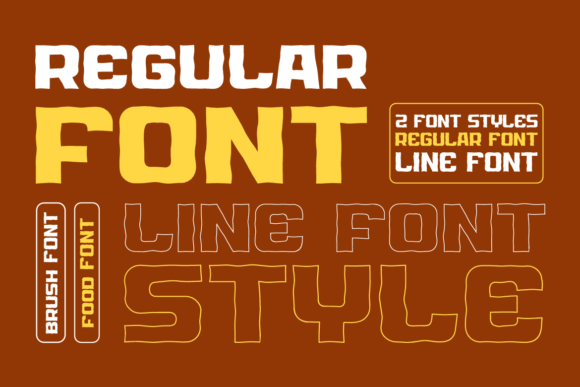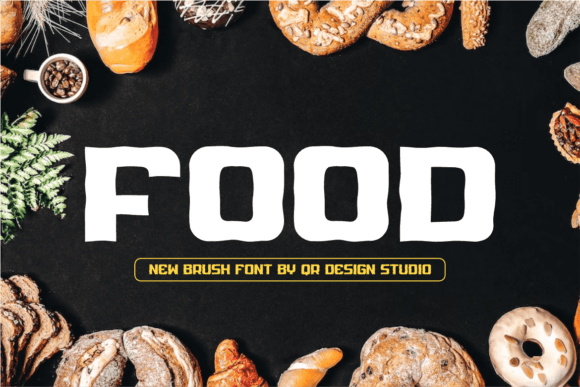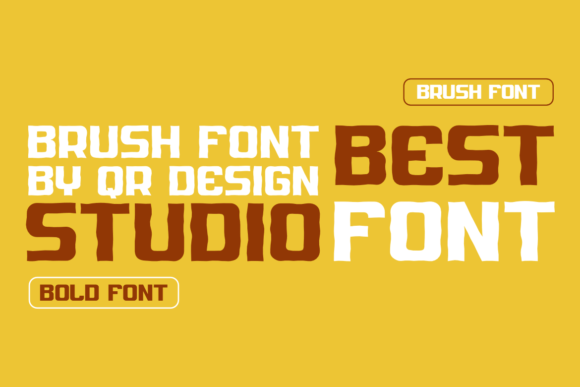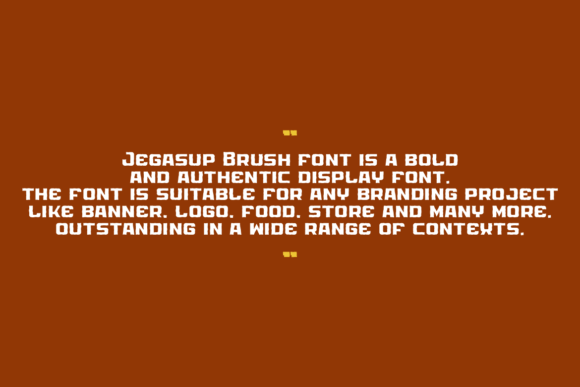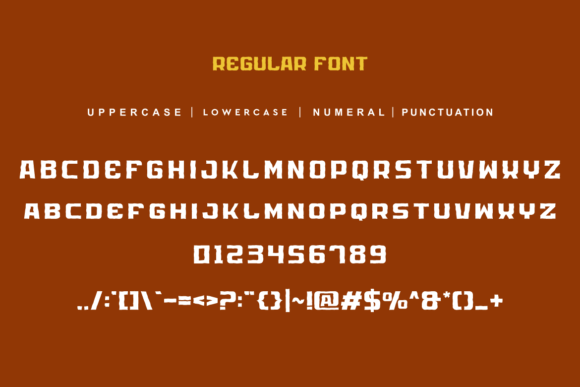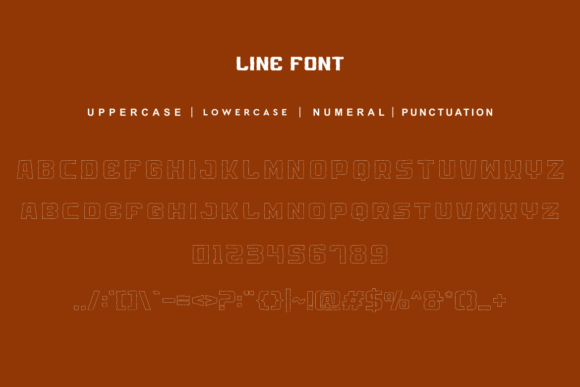
The Joy of Typography: Discovering Jegasup Brush Font
Have you ever found yourself staring at a blank page, trying to spark some creativity? You’ve got a great idea, but it just needs that special something to make it pop. For many designers, that special something is a font that captures the essence of their vision. And that’s where Jegasup Brush Font comes in – a cute and quirky decorative font that adds an incredibly joyful touch to any design.
This beautiful display font is perfect for adding a playful twist to your designs. Whether you’re creating a whimsical logo, a festive poster, or a fun social media graphic, Jegasup Brush Font is sure to make your ideas stand out. With its unique charm and versatility, it’s no wonder why designers are falling in love with this font. By incorporating Jegasup Brush Font into your creative projects, you’ll be able to infuse your designs with a sense of fun and personality that will leave a lasting impression on your audience.
Jegasup Brush Font Key Features
- Font Family: Jegasup Brush
- Unique Characteristics: Hand-drawn, brush-style font with a unique, artistic feel; perfect for creative and design-focused applications
Jegasup Brush Font Review
Overall, I think Jegasup Brush Font has a lot going for it ✨. The font is a great choice for projects that need a touch of hand-drawn charm, and it’s easy to use even for those who aren’t experienced designers.
- Unique style: The Jegasup Brush Font has a distinctive look that’s perfect for branding, advertising, and other creative projects where you want to stand out.
- Easy to read: Despite its brush-like appearance, the font is surprisingly legible, making it a great choice for body text as well as headings.
- Good for digital use: The font is well-suited for digital use, and it looks great on screens as well as in print.
However, there are a few limitations to consider ⚠️:
- Limited character set: While the font has a good number of characters, it’s not as comprehensive as some other fonts, which may limit its use in certain projects.
- No italic or bold styles: The font only comes in a regular style, which may not be suitable for all projects.
- Not suitable for small text: Due to its brush-like appearance, the font may not be the best choice for small text, where it can become difficult to read.
Overall, I think Jegasup Brush Font is a great choice for designers who want to add a touch of personality to their projects. While it has some limitations, its unique style and ease of use make it a valuable addition to any designer’s toolkit.
Tips: Use Jegasup Brush Font for creative and artistic designs, such as invitations, posters, and social media graphics.
Tips: Use Jegasup Brush Font for custom typography, such as hand-drawn signs, logos, and watermarks.
Tips: Use Jegasup Brush Font for creative and artistic presentations, such as infographics, slides, and reports.
Jegasup Brush Font is ideal for:
1. Creative and artistic designs.
2. Custom typography and hand-drawn elements.
3. Infographics and data visualizations.
4. Social media graphics and advertisements.
Alternatives to Jegasup Brush Font
Great Vibes Font is a modern, elegant script font perfect for creating a sense of sophistication and refinement. It’s ideal for use in branding, advertising, and editorial design. Great Vibes Font is more refined and polished compared to Jegasup Brush Font, making it a better choice for formal and high-end designs.
Alex Brush Font is a beautiful, handwritten font that’s perfect for creating a personal and emotional connection with your audience. It’s ideal for use in wedding invitations, greeting cards, and other creative projects. Alex Brush Font is more delicate and cursive compared to Jegasup Brush Font, making it a better choice for projects that require a touch of whimsy and personality.
Pacifico Font is a elegant, modern script font that’s perfect for creating a sense of relaxation and calmness. It’s ideal for use in travel brochures, spa and wellness branding, and other projects that require a soothing and peaceful vibe. Pacifico Font is more laid-back and casual compared to Jegasup Brush Font, making it a better choice for projects that require a sense of serenity and tranquility.